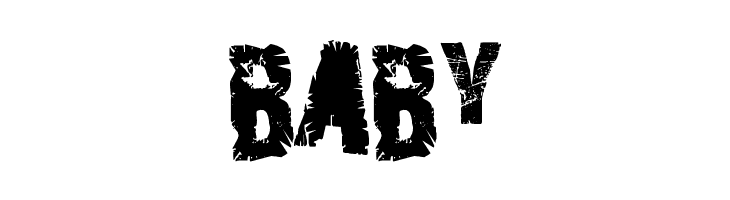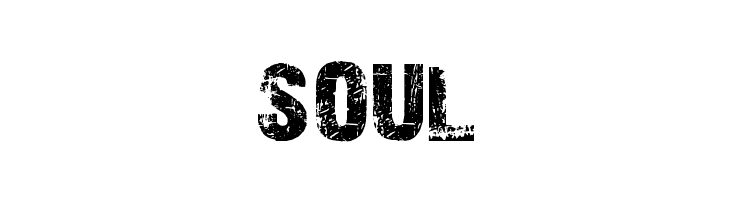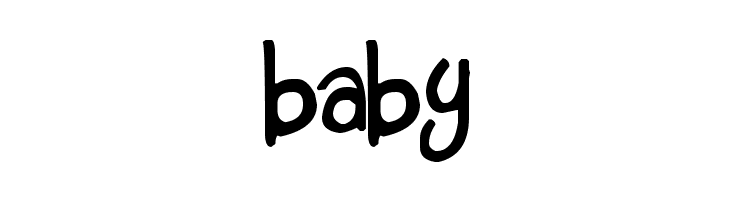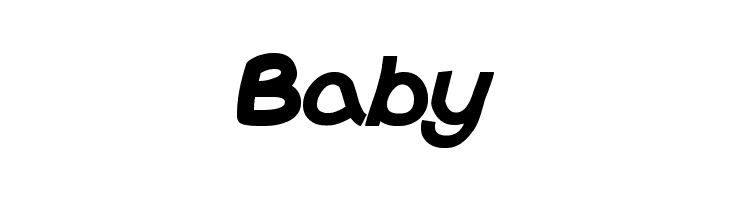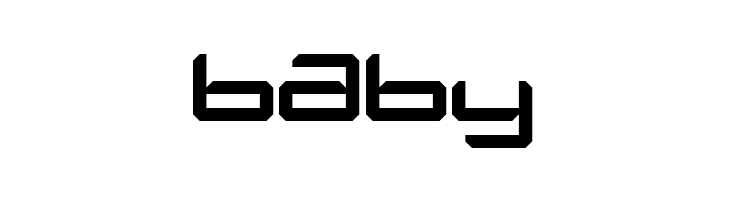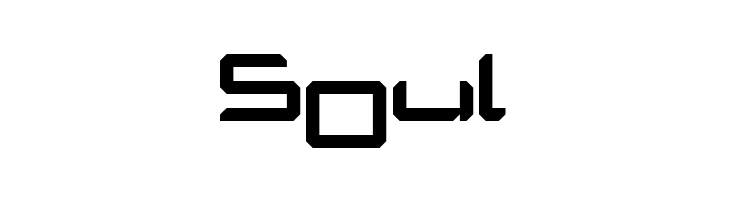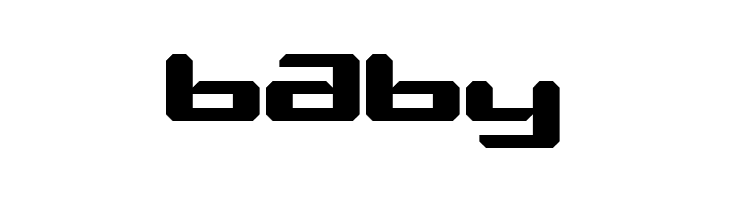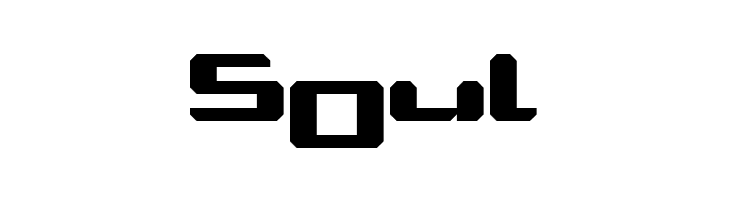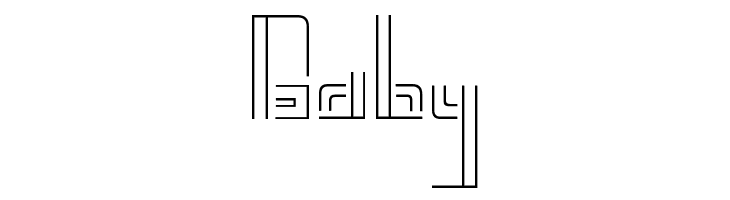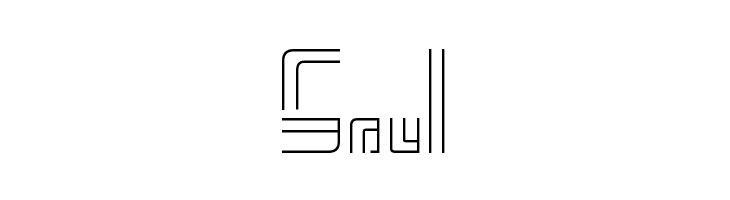
( Luke Sanders )
A bold, angular font with a futuristic and sporty design.
( LJ Design Studios - www.ljdesignstudios.com )
A bold, handwritten font with a casual, artistic style.
A playful, handwritten font with rounded, bubbly characters.
( Angoes25 - www.facebook.com/Angoes25 )
A bold, geometric font with a modern and strong aesthetic.
A bold, playful font with dynamic, rounded characters and a whimsical style.
A bold, dynamic font with a playful, modern twist.
( Fonts by Paul Reid - tracertong.co.uk )
A futuristic, geometric font with a digital aesthetic.
( Fonts by Paul Reid - tracertong.co.uk )